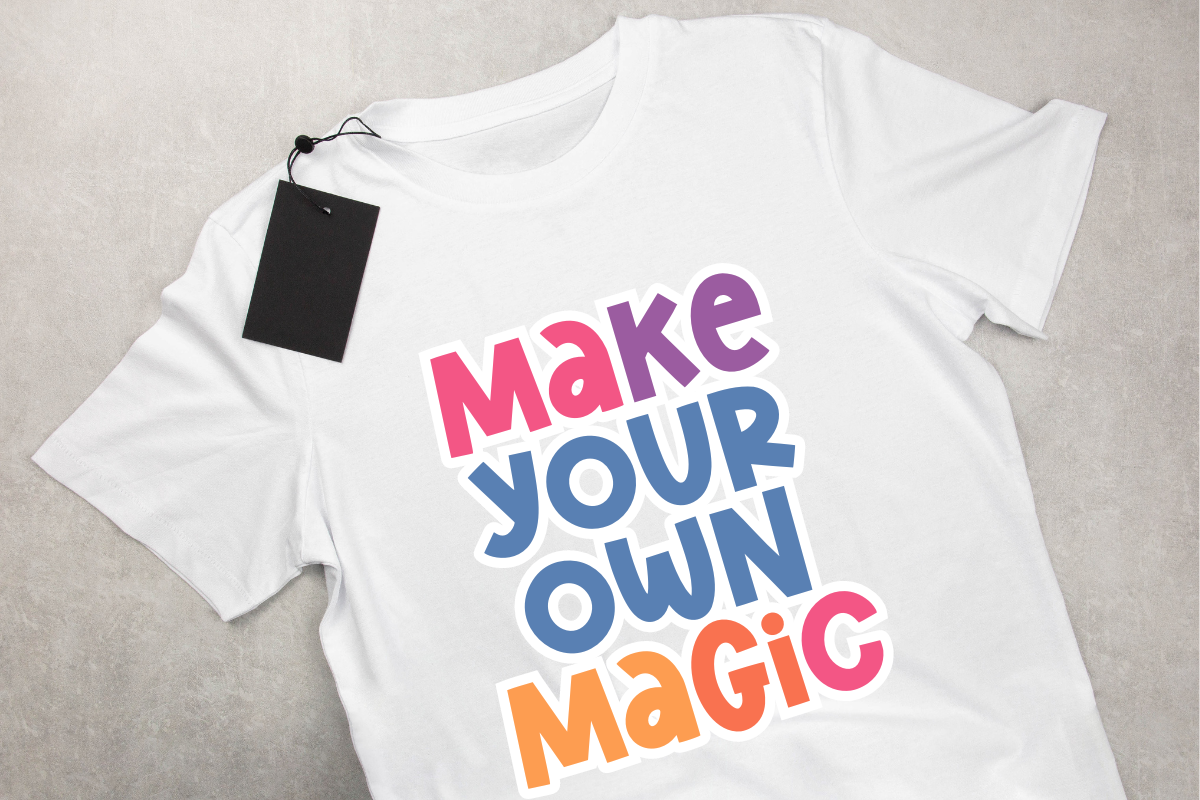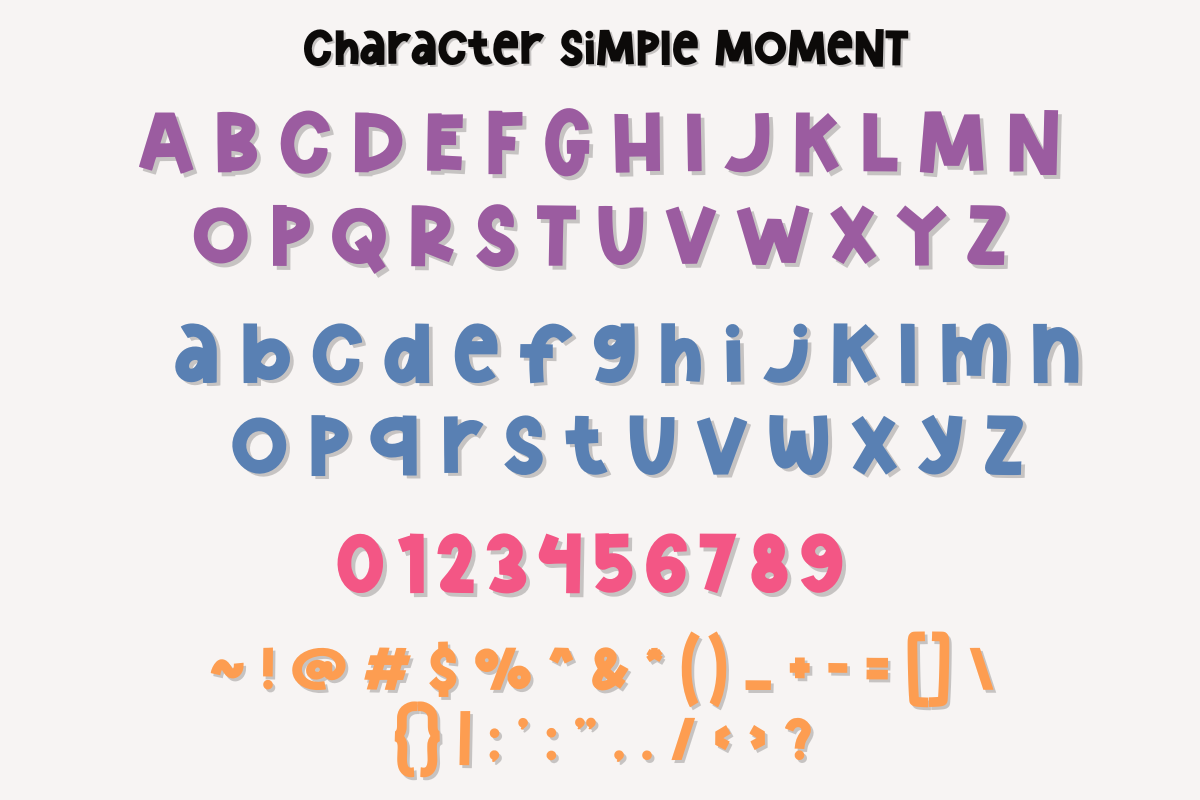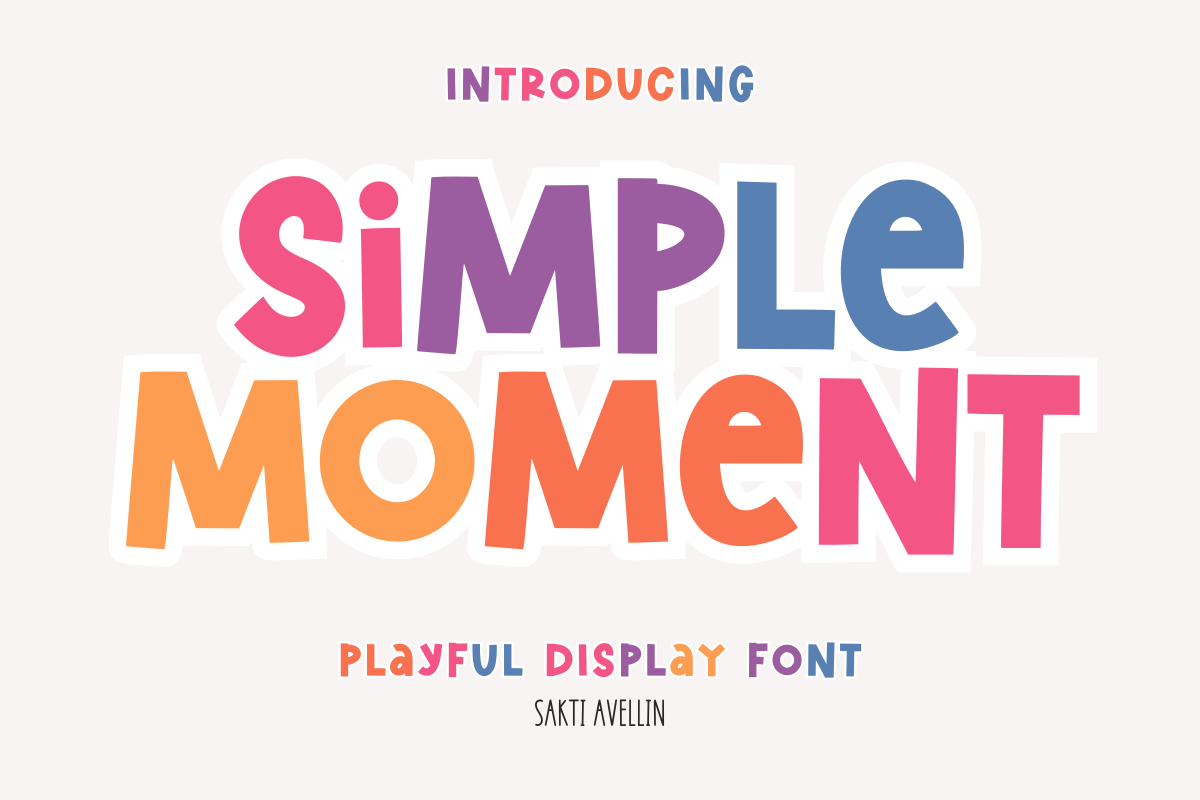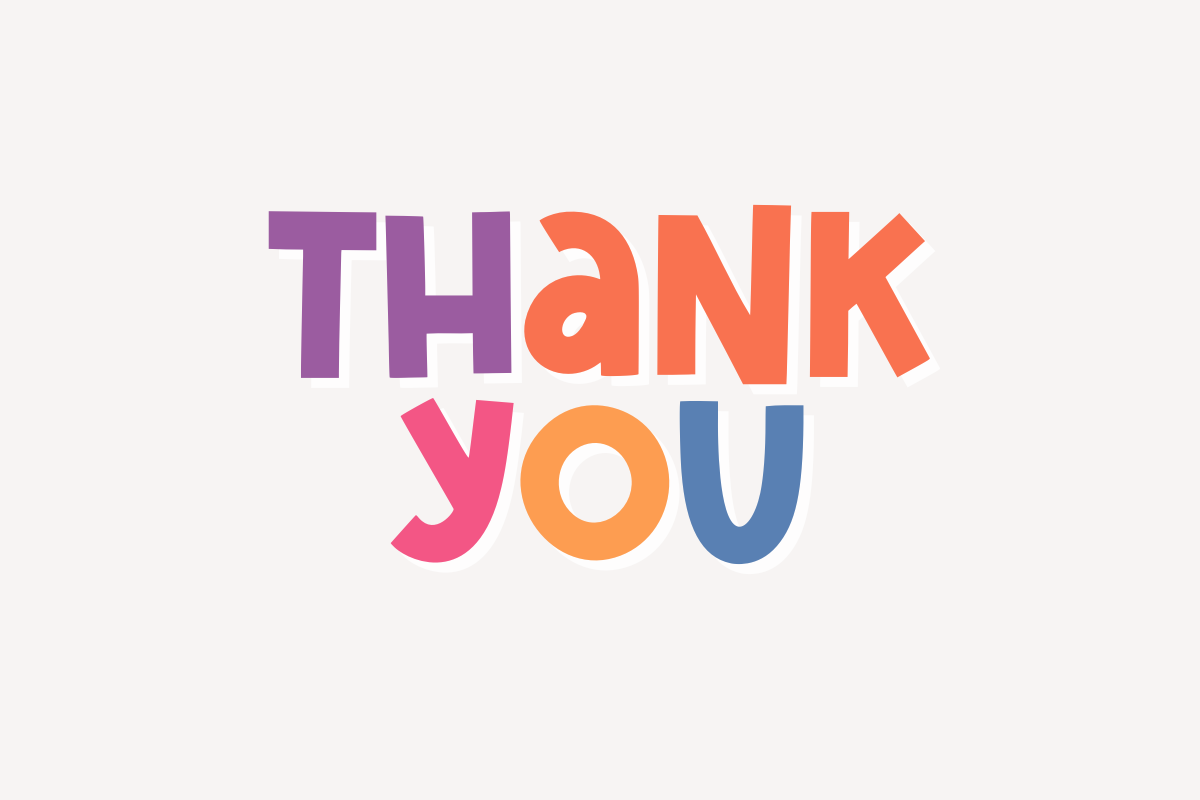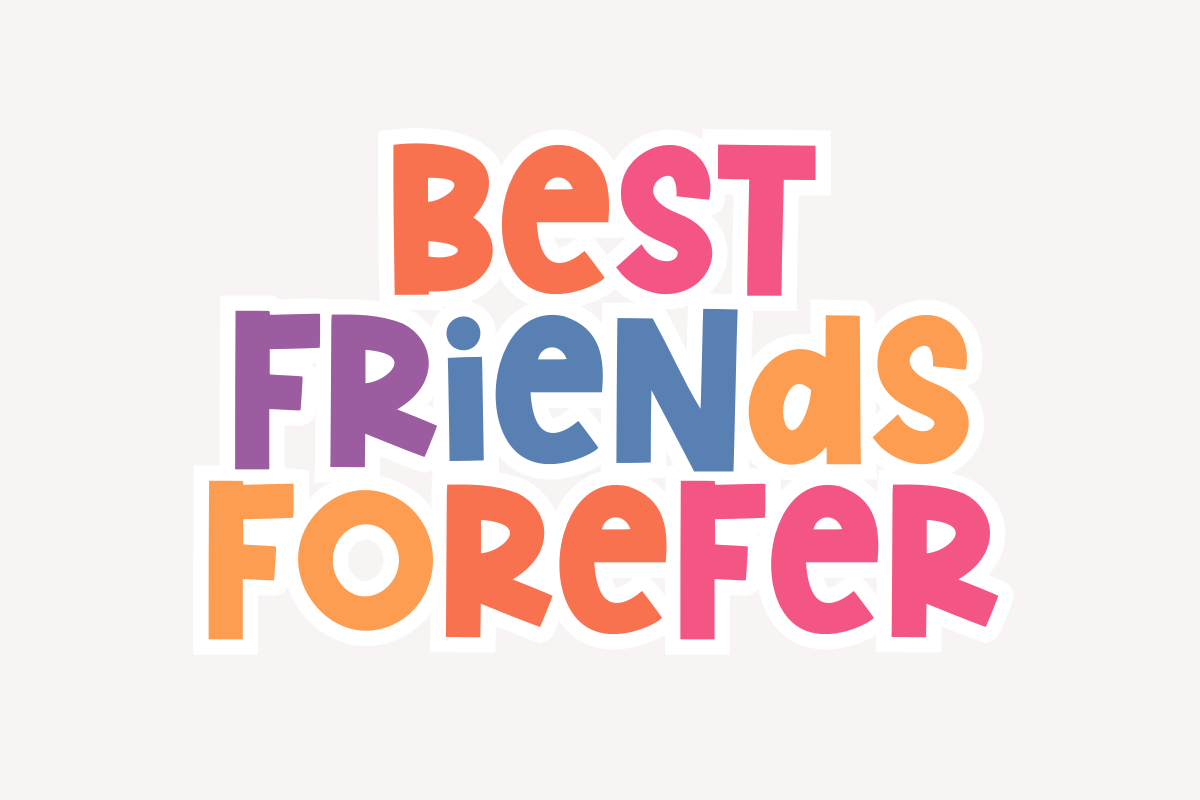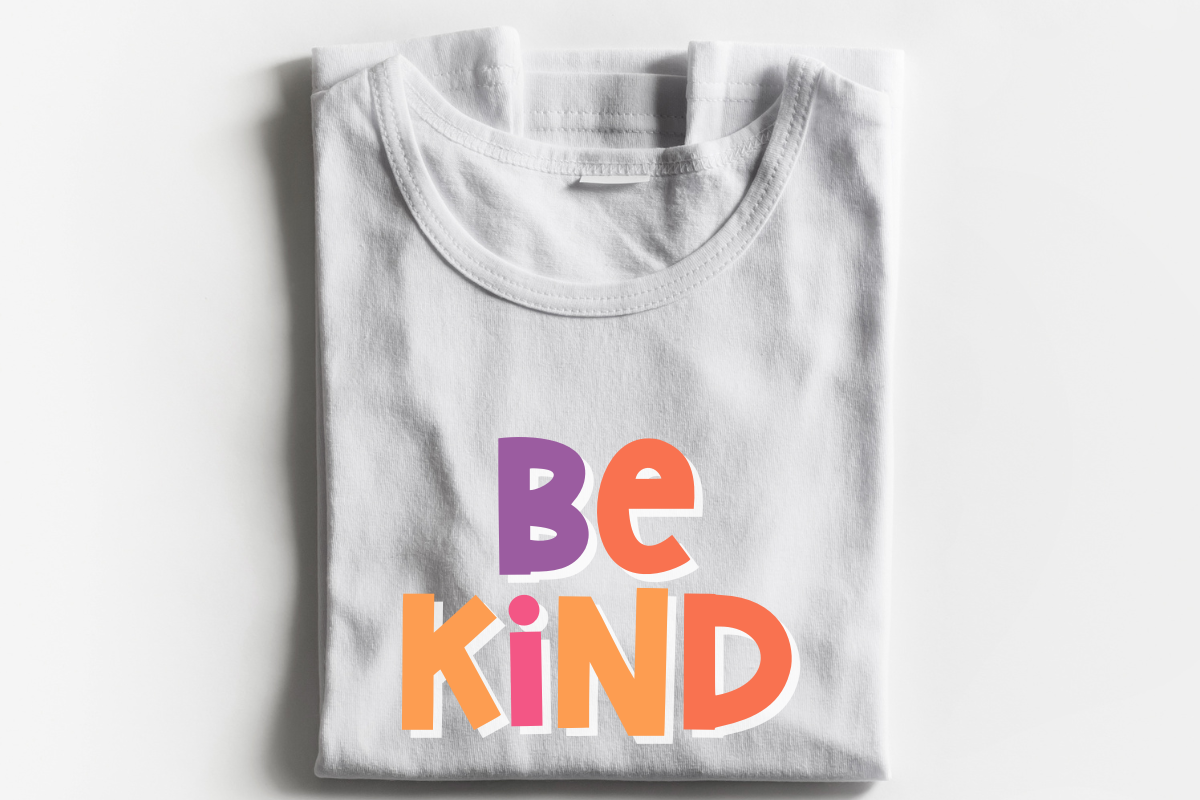
Simple Moment - Playful Display Font
Simple Moment is a wonderfully bold and effortlessly playful display font that radiates positive energy and fun. Featuring thick, rounded characters, this chunky font is perfect for kids' branding, nursery decor, impactful T-shirt designs, eye-catching headlines, and any project needing a friendly, casual aesthetic. Its clear, modern display typeface ensures great readability while delivering a charming, whimsical vibe. Ideal for logo design, comic books, product packaging, and vibrant social media posts. Bring joy and simplicity to your creative work with this delightful and cute font!